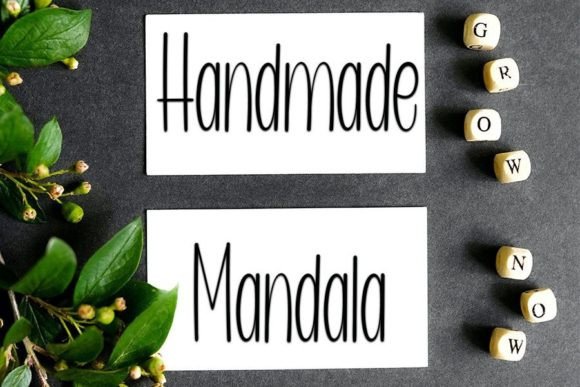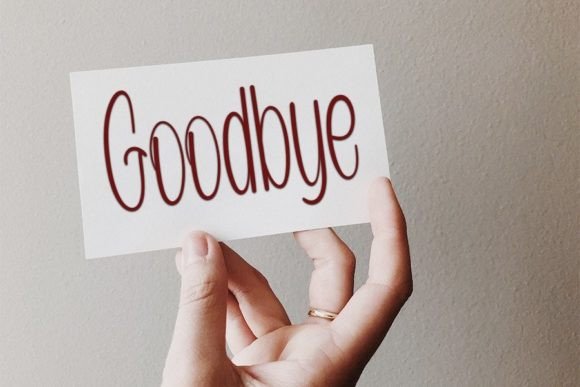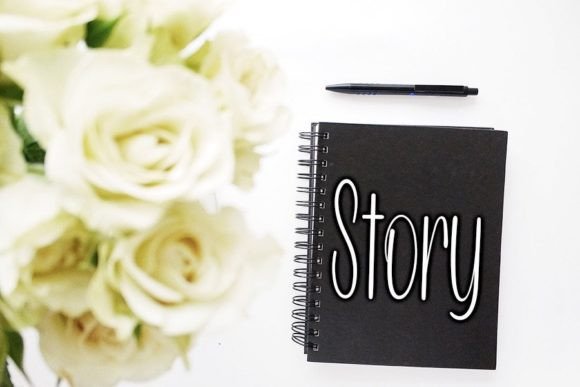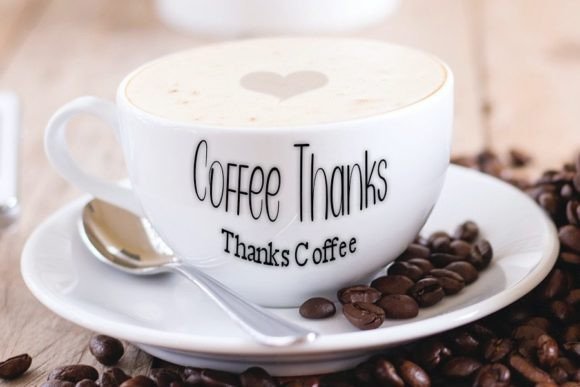
The Perfect Brush Stroke: Discover the Humble Font
There’s something magical about creating a design that transports your audience to a different world. For me, it’s the moment when I stumble upon the perfect font to bring my vision to life. And today, I’m excited to share with you one of my favorite finds: the Humble Font.
This beautiful handwritten font is more than just a pretty face – it’s a powerful tool for designers who crave elegance and sophistication. With its unique touch, Humble Font adds a personal and timeless quality to any project. Whether you’re a seasoned pro or just starting out, this font is sure to become your go-to companion for creating spectacular designs.
So, what makes the Humble Font so valuable? Its distinct style and versatility make it a versatile choice for any project, from wedding invitations to branding materials. Trust me, once you fall in love with its charm, you’ll be hooked!
Humble Font Key Features
- Unique Characteristics: Humble Font is designed to be a clean, modern sans-serif font with a subtle rounded edge, making it suitable for body text and display use.
- Font Metrics: The font’s x-height is 0.45, with a cap height of 0.65 and an ascender height of 0.65. This provides a balanced and harmonious appearance.
Humble Font Review
I was excited to dive into the Humble Font, a font designed for a modern and humble aesthetic. ✨ The font does deliver on its promise, with clean lines and a subtle texture that adds depth to any design. The font feels approachable and friendly, making it perfect for body text or titles that need a touch of warmth.
- It’s great for creating a cohesive brand identity, with a consistent tone and feel across various design elements.
- The font is highly legible, making it suitable for a wide range of content, from short paragraphs to longer forms of writing.
However, there are a few limitations to consider. ⚠️ The font may not be the best choice for bold, eye-catching headlines, as it can feel a bit understated. Additionally, the subtle texture can sometimes make it difficult to read on certain backgrounds or in certain lighting conditions.
Overall, I think the Humble Font is a great choice for designers who want to create a clean and approachable aesthetic. It’s perfect for brands that value simplicity and humility, and it’s a great addition to any design toolkit.
Getting the Most Out of Humble Font
Here are some tips to get the most out of Humble Font:
1. Experiment with different font sizes and styles to create a unique look.
2. Pair Humble Font with other fonts to achieve a harmonious typography.
3. Use Humble Font for headings and titles to add emphasis and hierarchy.
Humble Font is suitable for a variety of use cases, including:
1. Branding and logos.
2. Web design and typography.
3. Print materials, such as brochures and business cards.
4. Digital presentations and documents.
Alternatives to Humble Font for Designers
1. Lato
Lato is a modern sans-serif font that is highly legible and versatile. It is suitable for a wide range of applications, from body text to headings. Lato is often used for its clean and minimalist aesthetic, making it a great alternative to Humble Font for designers who want a more modern look.
Comparison: Lato is more modern and minimalist compared to Humble Font, which has a more vintage feel. Lato is also more versatile and can be used for a wider range of applications.